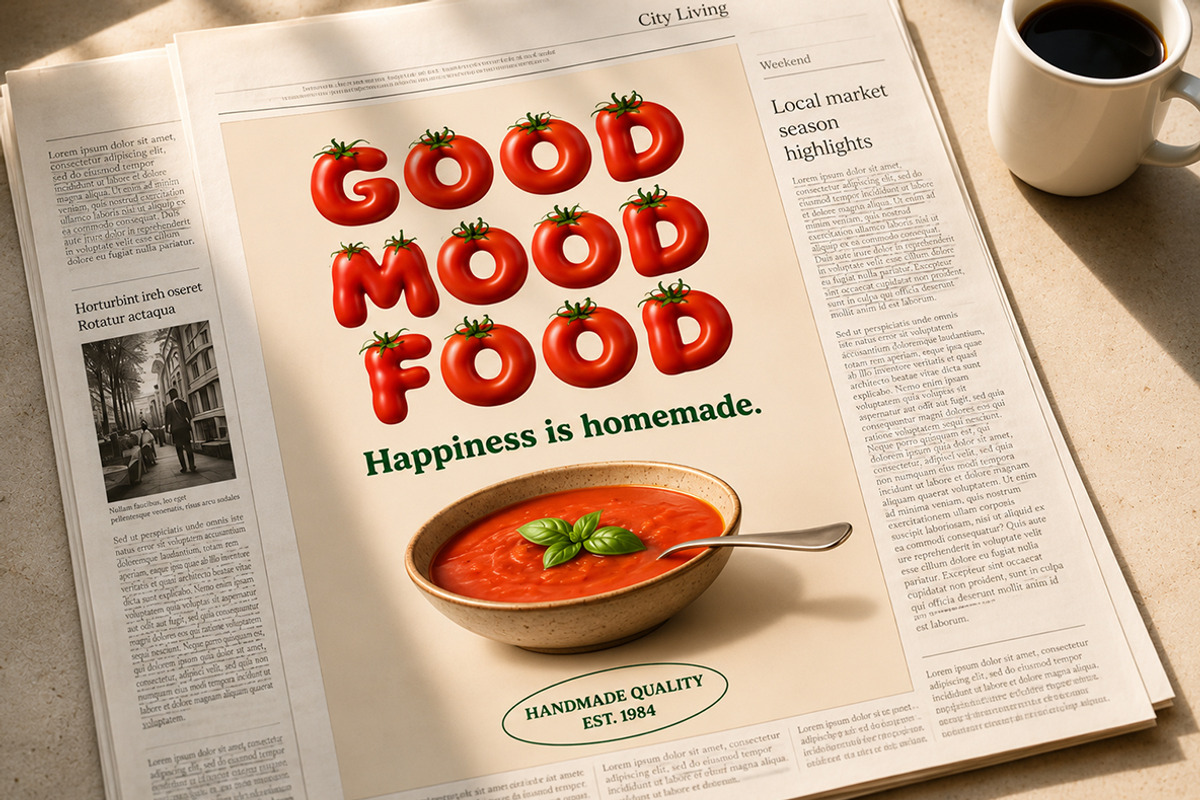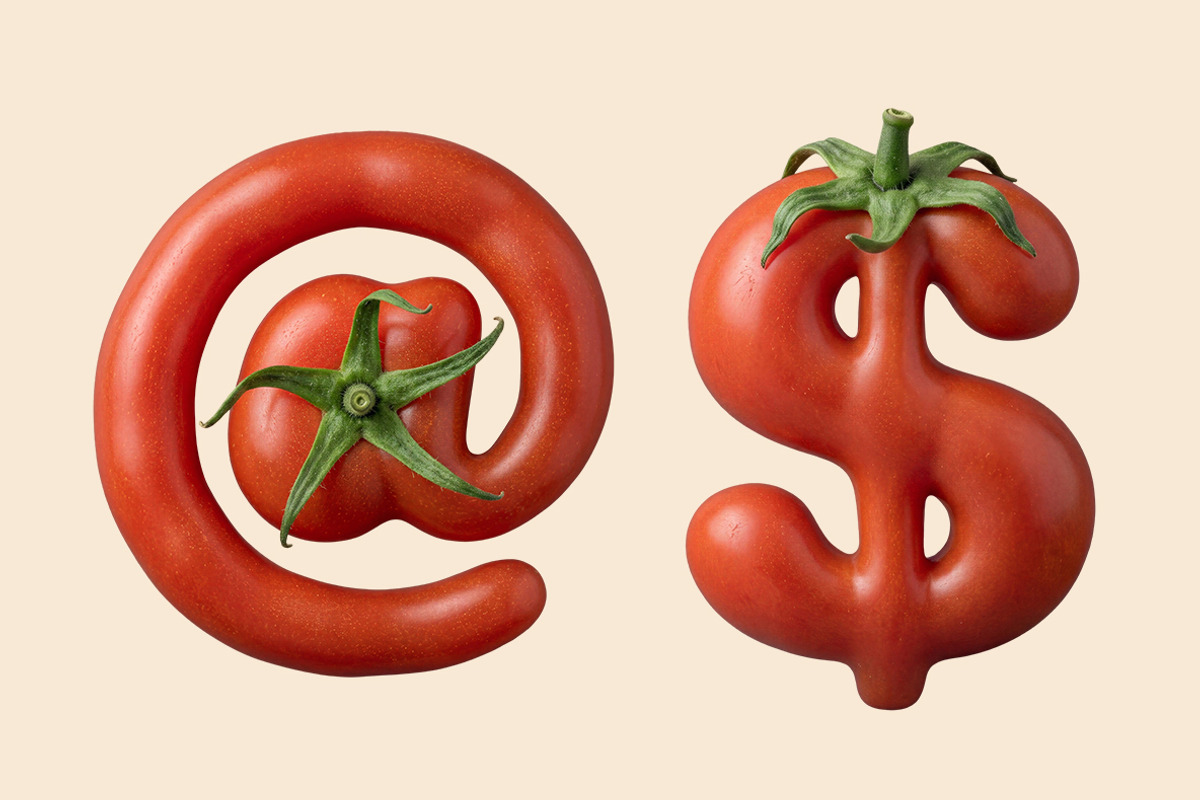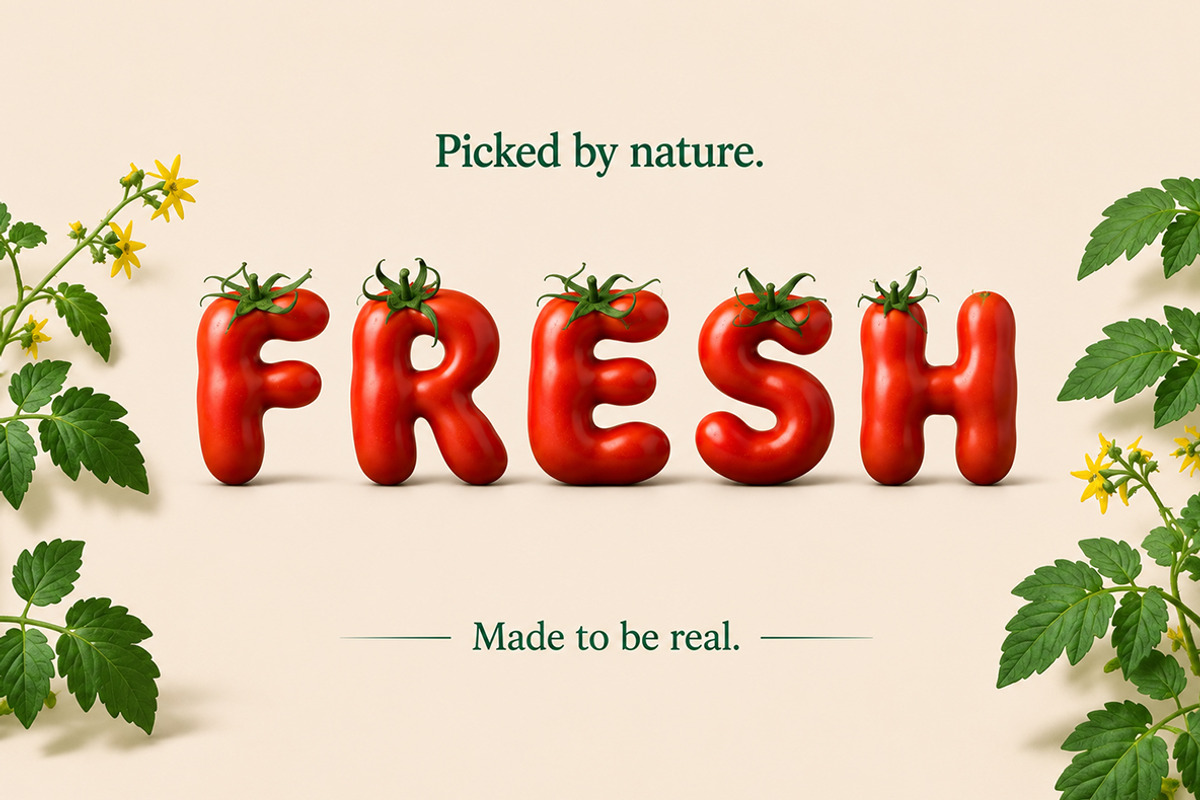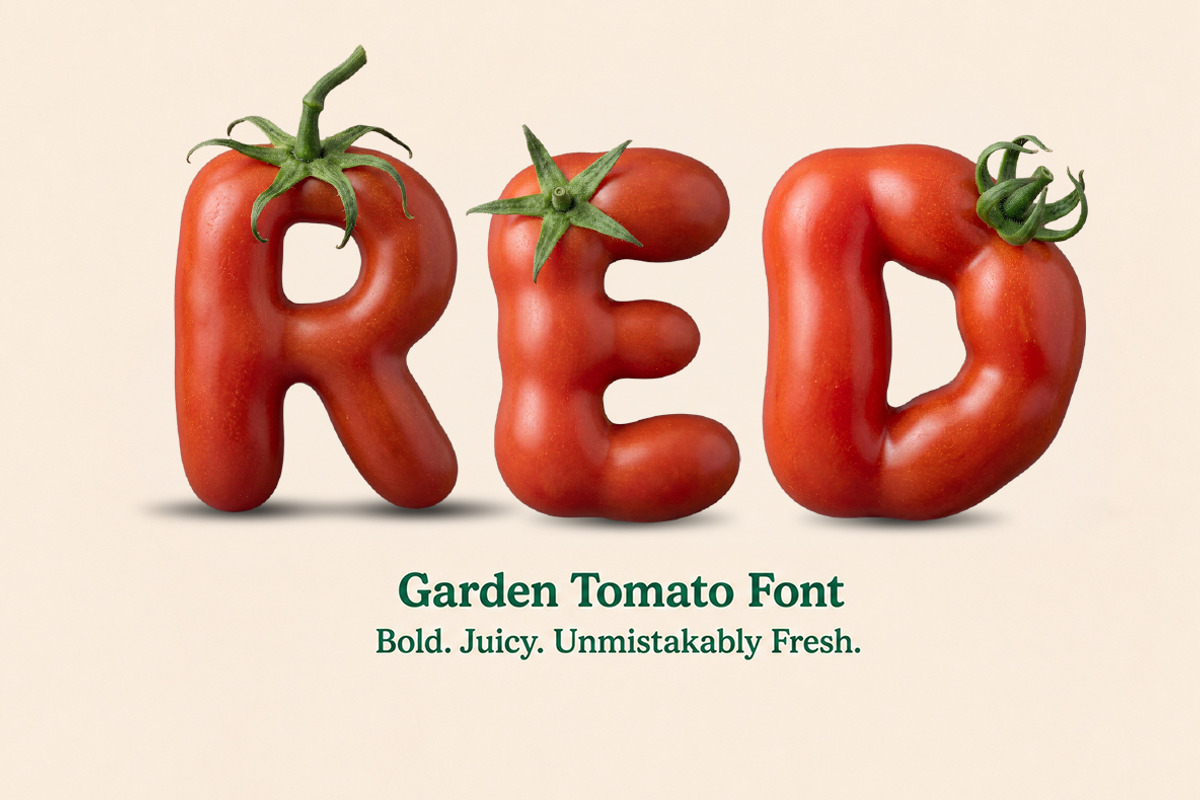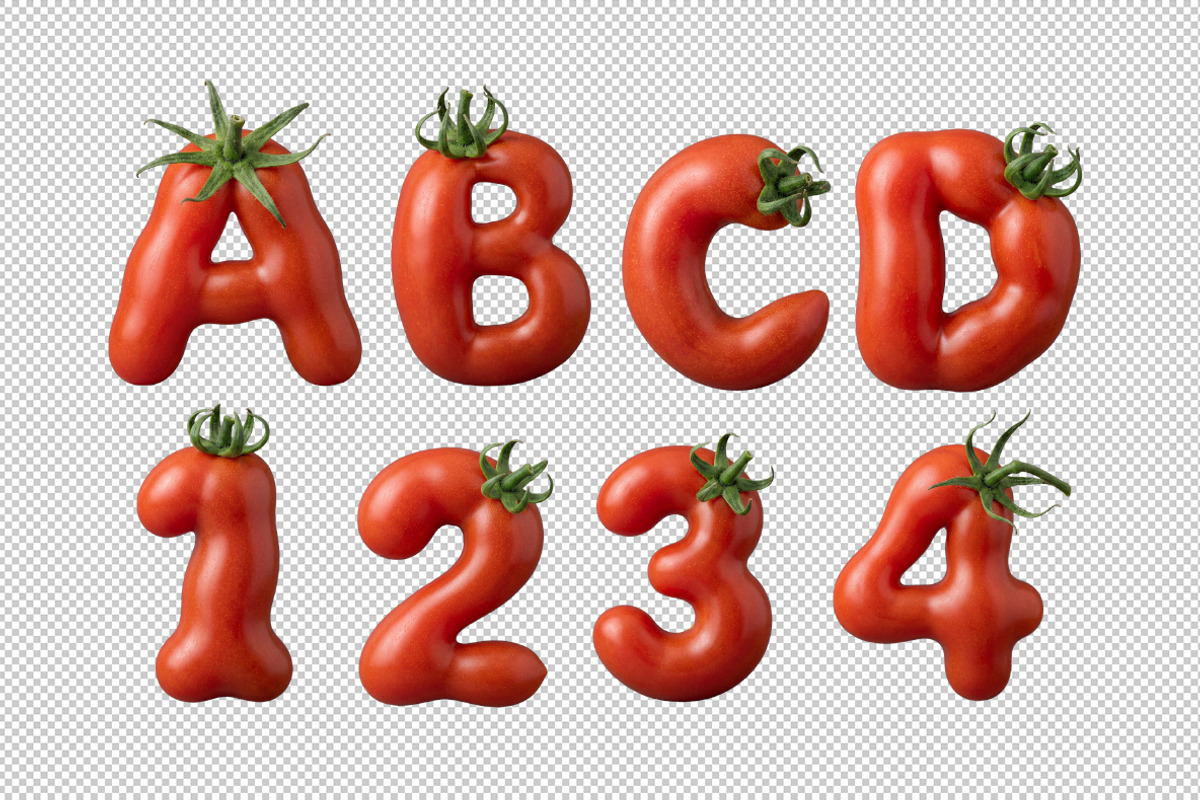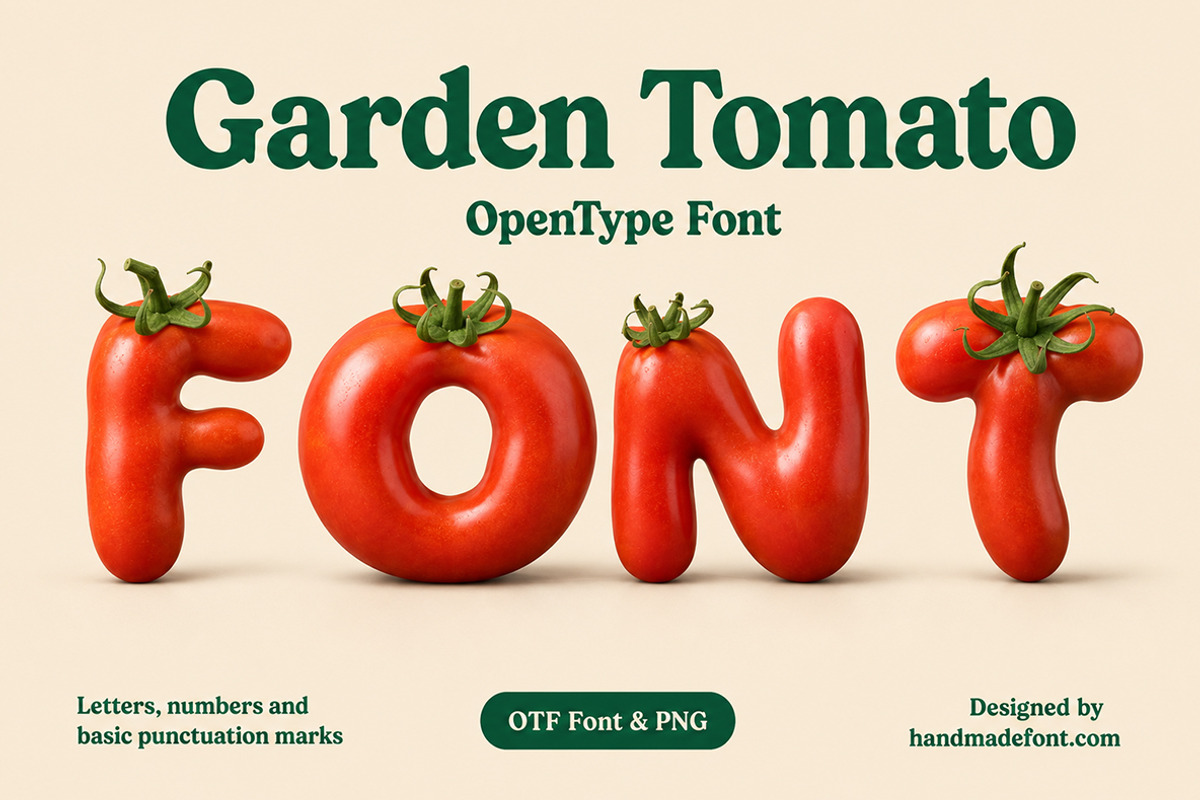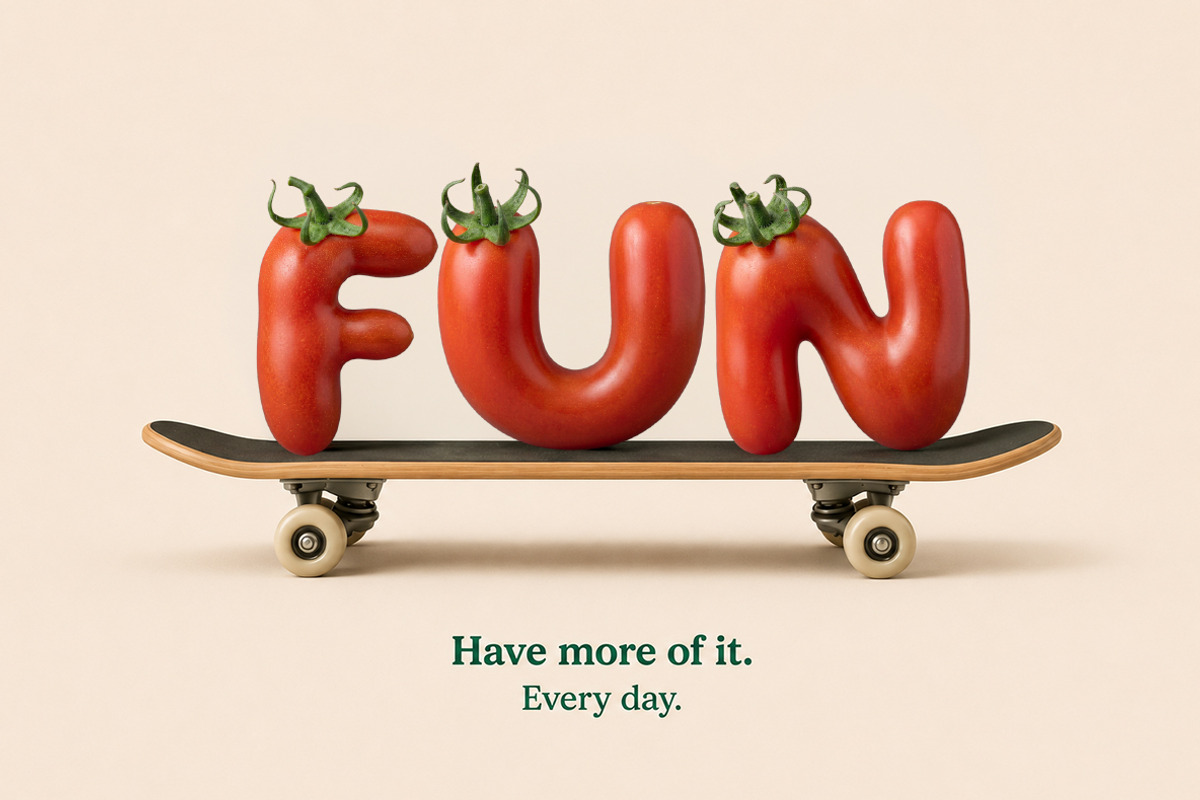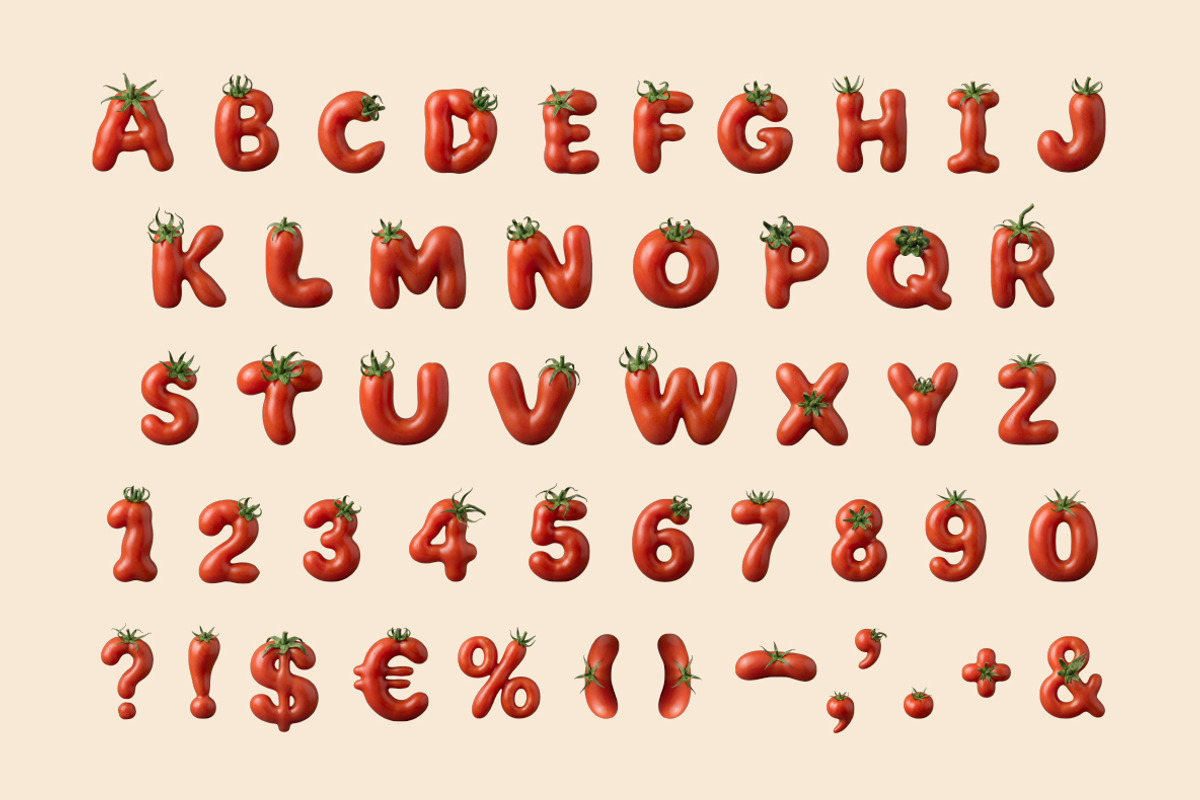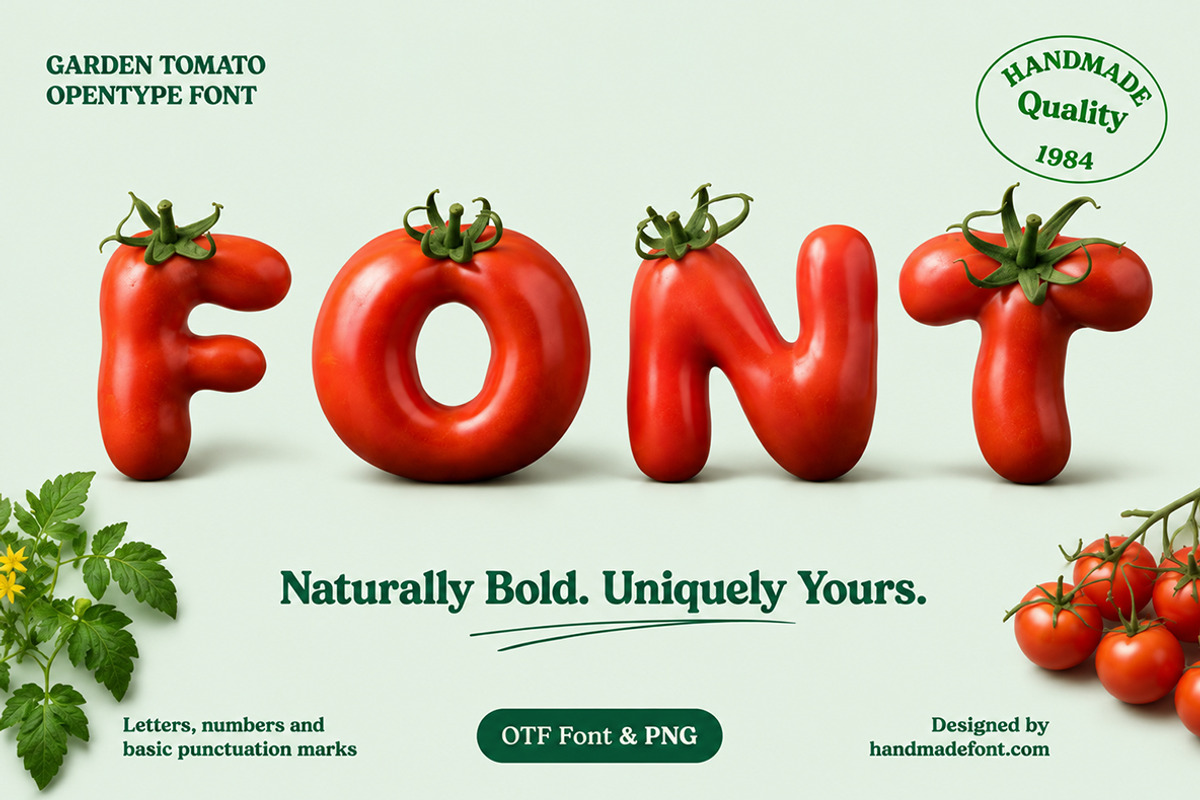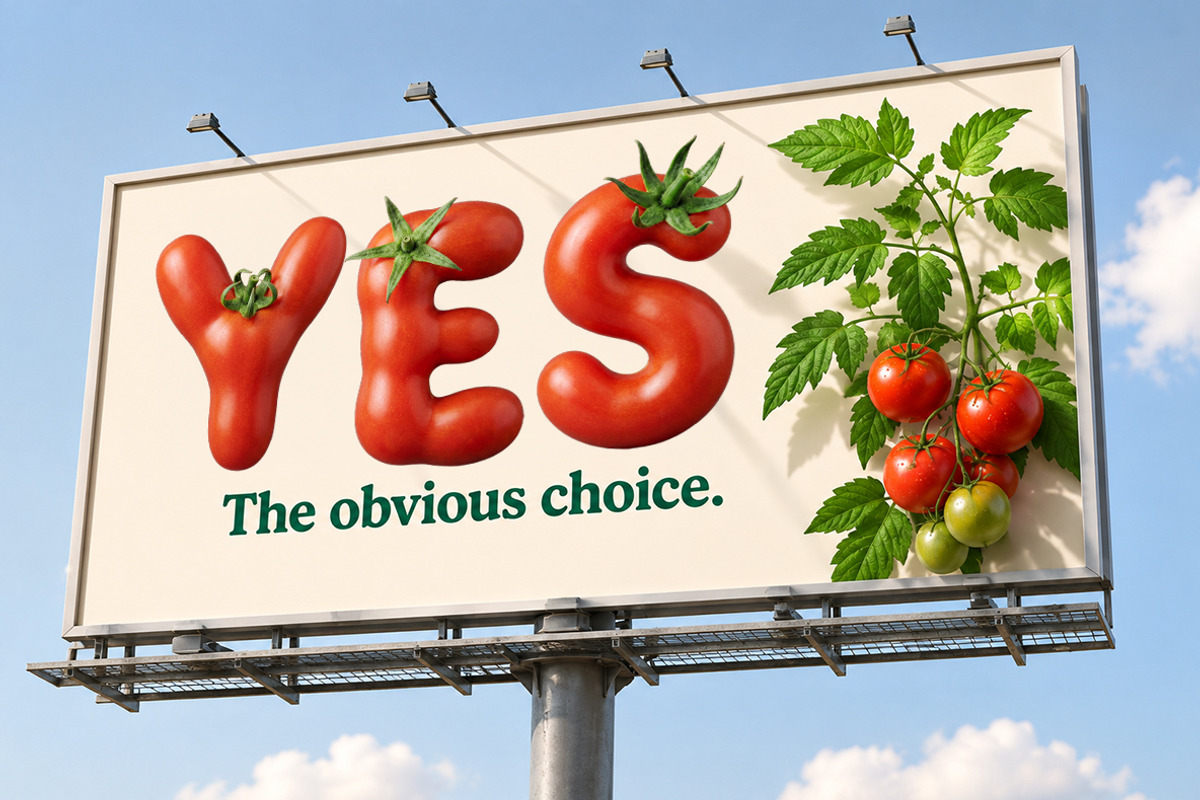
Garden Tomato Font
Garden Tomato Font brings the freshness of the garden into your creative projects with playful, handcrafted letters shaped like juicy ripe tomatoes. Perfect for food branding, farmers’ markets, restaurant menus, packaging, posters, social media, and seasonal designs, this unique typeface instantly adds warmth and personality. The package includes an easy-to-use OTF font for typing and a complete set of high-resolution PNG letters with transparent backgrounds, giving you maximum creative flexibility. Every character is carefully crafted with realistic tomato textures and natural details, making your typography feel organic, vibrant, fun, and unforgettable for both print and digital projects.
Letters : A B C D E F G H I J K L M N O P Q R S T U V W X Y Z
Numbers : 0 1 2 3 4 5 6 7 8 9
Others : ! ? - . ' $ € % & #